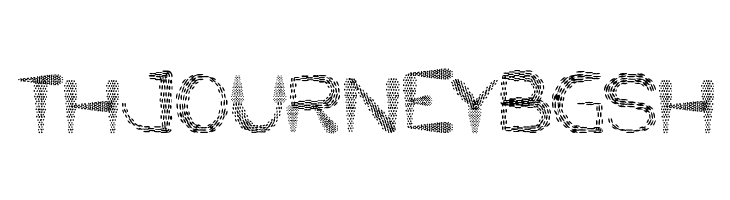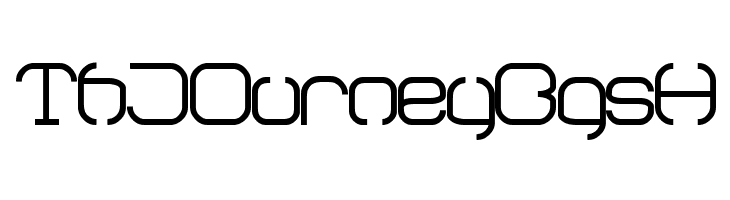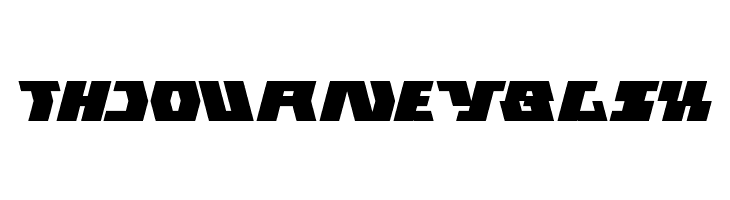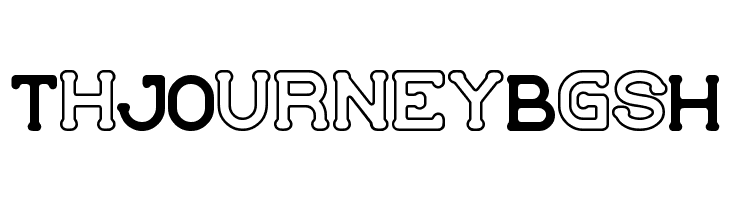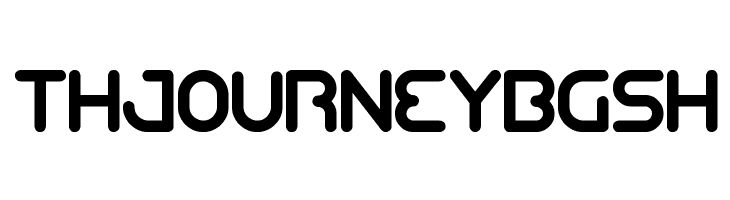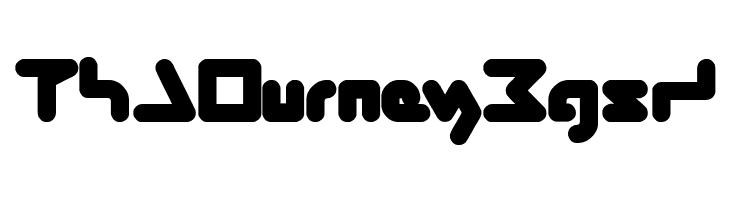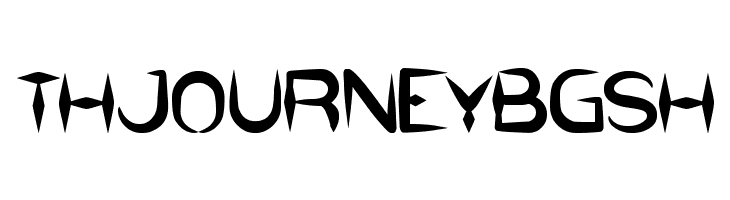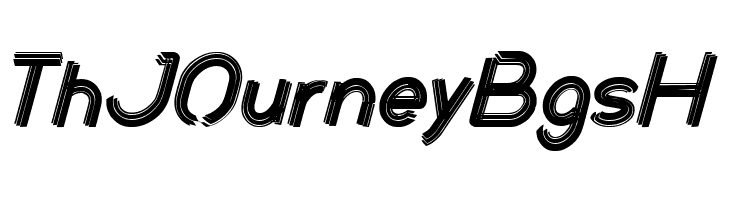
A decorative font combining hearts and stars with classic serif numbers.
A decorative font with intricate jewelry-like shapes and classic serif numbers.
A playful, bubble-like font with bold, rounded characters.
A decorative and whimsical font with bold, swirling elements and intricate detailing.
A bold, futuristic font with sharp, angular edges and a tech-inspired design.
A bold, modern geometric font ideal for impactful headlines and branding.
A textured, playful font with an organic, stippled appearance.
A bold, cursive font with a shadow effect for a three-dimensional look.
A flowing, cursive script font with elegant, connected strokes.
A bold, geometric decorative font with crescent-like cutouts.
A decorative font with dragon-themed uppercase letters and bold, gothic-inspired characters.
A classic Gothic-style font with ornate, medieval-inspired letterforms.
A Gothic-inspired decorative font with ornate, playful letterforms and high contrast.
A gothic-inspired font with playful, ornate letterforms and dramatic flair.
A futuristic, geometric font with bold, angular letterforms and rounded edges.
A bold, modern font with rounded edges and a playful aesthetic.
A bold, dynamic font with sharp, angular strokes and an energetic appearance.
An elegant script font with intricate swirls and flowing strokes.
A playful, rounded font with a whimsical and bold design.
A bold, playful font with a 3D effect and cartoonish style.
A bold, distressed font with a grunge, urban aesthetic.
A whimsical and playful font with tall, slender letterforms and exaggerated curves.
A playful, handwritten font with rounded, flowing characters and a cheerful vibe.
A playful, bold font with a hand-drawn, three-dimensional style.
A decorative font with a stitched, handcrafted appearance.